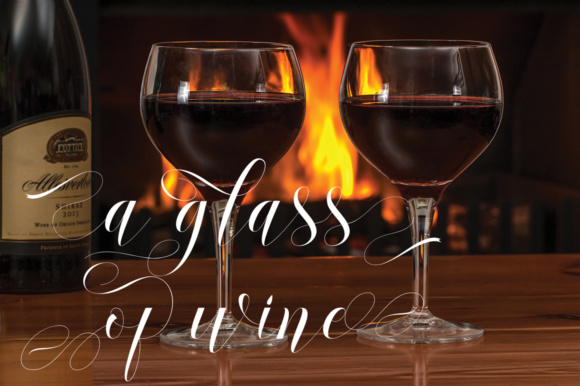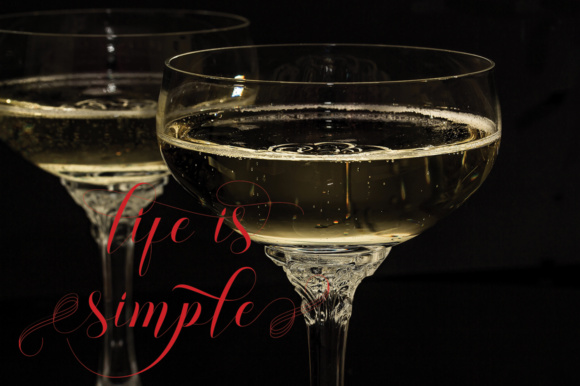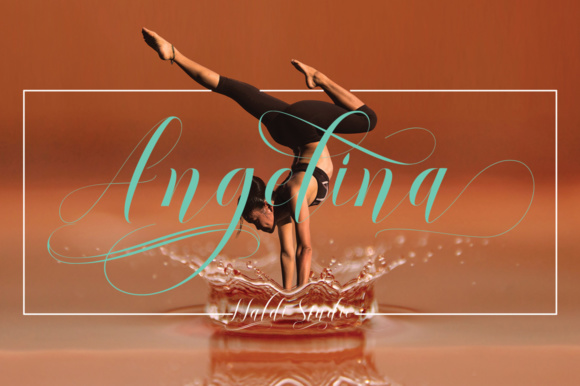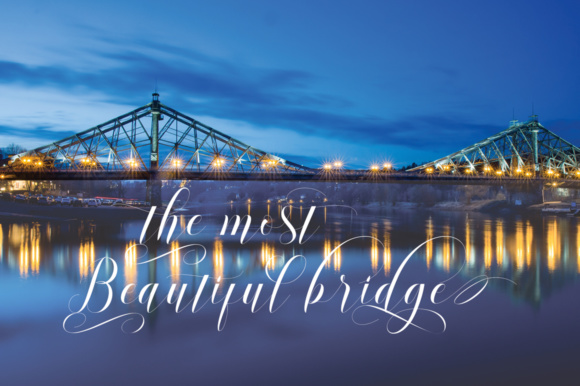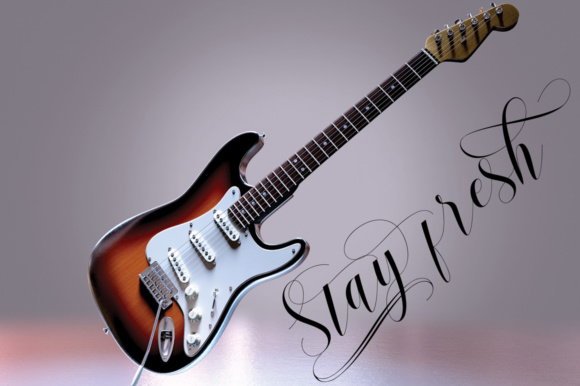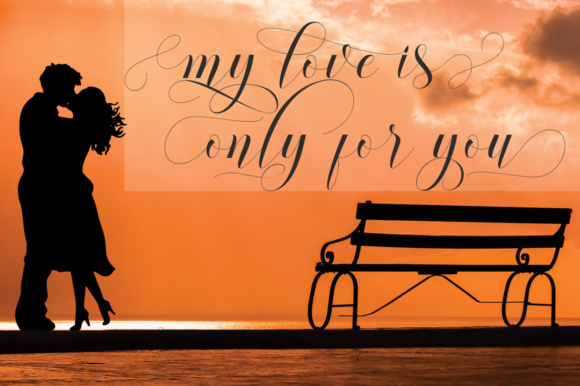
Introduction to Dermaga Font
As a designer, there’s nothing quite like the thrill of discovering a new, high-quality design resource that elevates your creative project to the next level. For me, that moment came when I stumbled upon the stunning Dermaga Font, a beautiful and extensive script calligraphy font that has since become a go-to choice for my romantic and whimsical designs.
With its over 1400+ glyphs, the Dermaga Font offers a level of detail and sophistication that’s hard to find in other fonts. Whether I’m working on a wedding invitation, a book cover, or a social media campaign, the Dermaga Font always brings a touch of elegance and sophistication to my designs.
One of the things I love about the Dermaga Font is its versatility – it looks great on a transparent background, and can be easily paired with other design elements to create a unique and eye-catching look. And the best part? It’s available for free download, making it an invaluable resource for designers of all levels.
Dermaga Font
- Unique, modern design aesthetic perfect for branding, logos, and typography-based creative projects
Honest Review: Dermaga Font
I recently came across the Dermaga Font, a free design resource that caught my attention. As a designer, I’m always on the lookout for high-quality fonts to elevate my creative projects. In this review, I’ll share my honest thoughts on what works well and what could be improved.
- The Dermaga Font features a unique and stylish design that’s perfect for modern creative projects.
- The transparent background makes it easy to overlay on images or use as a standalone font.
- The font may not be suitable for formal or traditional projects, as it has a more modern and edgy feel.
- The character set may be limited, which could be a concern for designers who need a wide range of characters.
Overall, the Dermaga Font is a solid addition to any designer’s toolkit. While it may have some limitations, its unique design and free download make it an excellent resource for modern creative projects. I’d definitely recommend giving it a try.
Dermaga Font
Getting the Most Out of Dermaga Font
For optimal results, use the Dermaga Font in conjunction with other high-quality design elements. Experiment with different font sizes, colors, and styles to create visually appealing designs. The font’s transparent background allows for seamless integration with other design elements.
The Dermaga Font is suitable for a wide range of creative projects, including logos, business cards, brochures, and website designs. Its versatility and high quality make it an excellent choice for designers and non-designers alike.